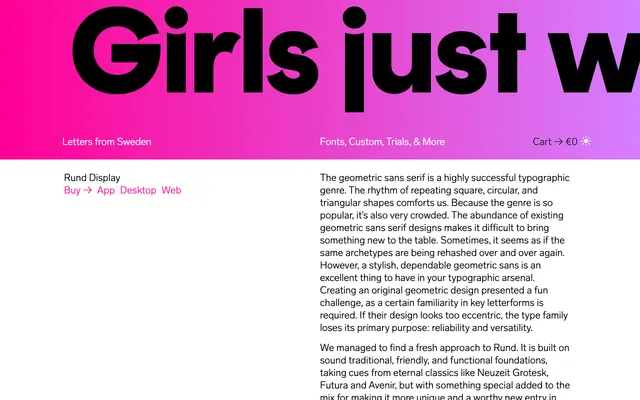
Rund Display
A geometric sans by Göran Söderström with subtly concave stroke terminals that add warmth and crispness, particularly at large sizes.
Rund Display draws on the geometric sans tradition of Futura, Avenir and Neuzeit Grotesk while introducing concave terminal shapes reminiscent of Optima, referencing broad-nib pen forms. Eight display weights ship with tight spacing and exaggerated terminals designed to become visible at large sizes without disrupting readability at text sizes in its companion Text cut. A variable font is available on request.
Geometric sans with circular, square and triangular stroke rhythms, citing Futura, Avenir and Neuzeit Grotesk as references. The Display cut features exaggerated concave terminal shapes that further distinguish it from conventional geometric sans archetypes.